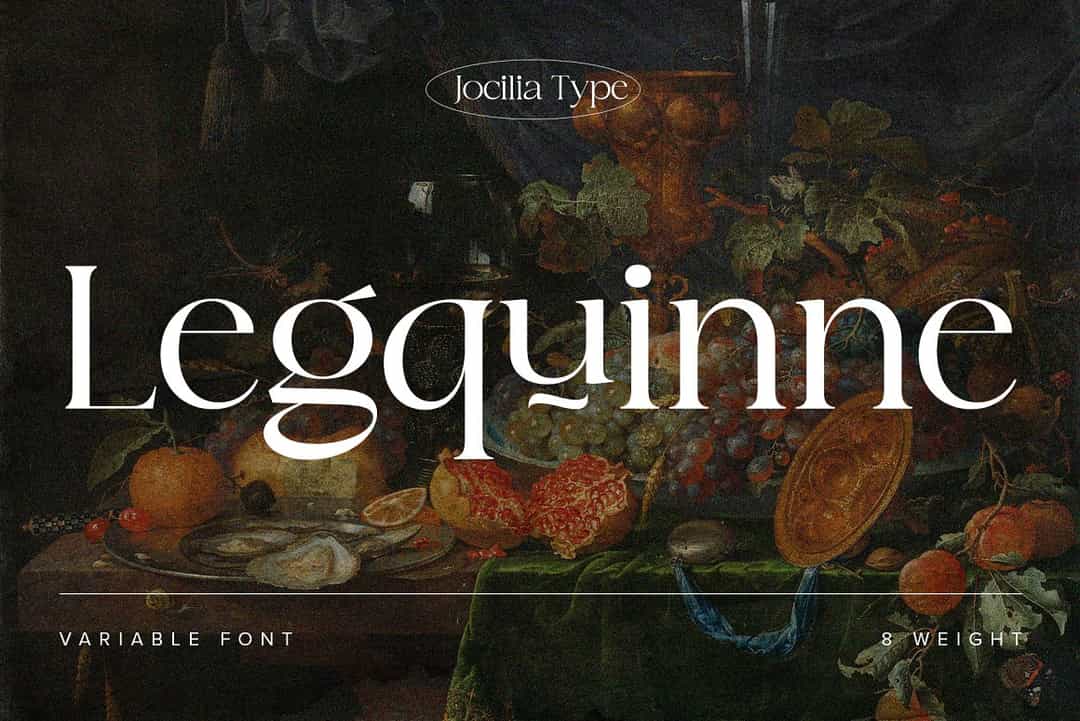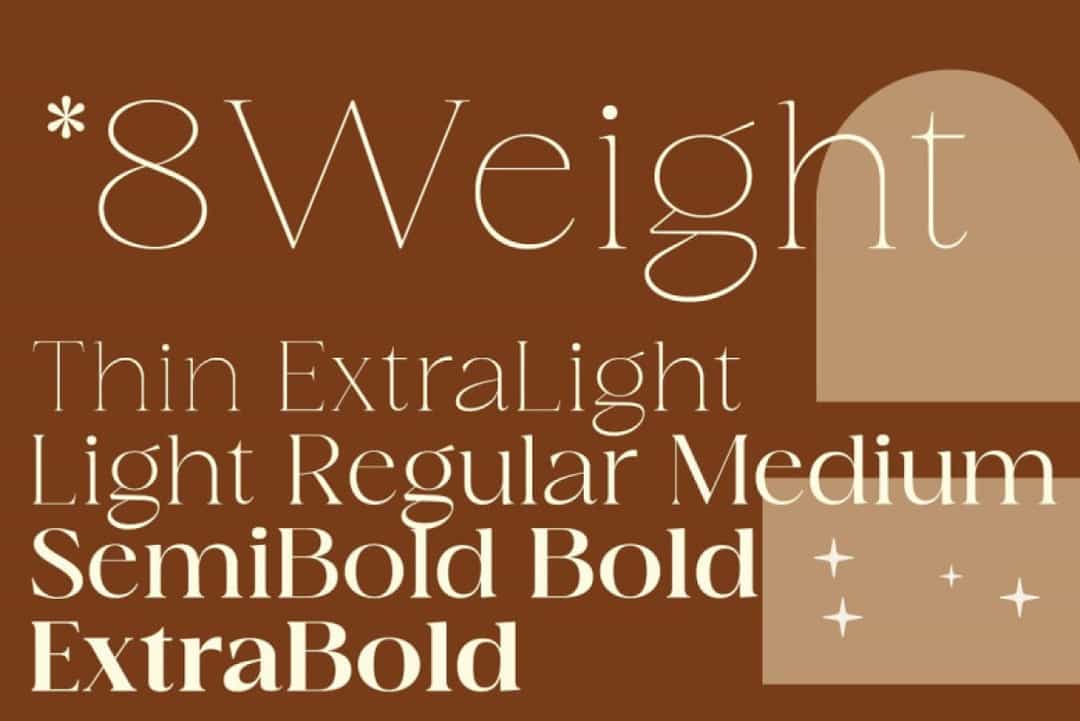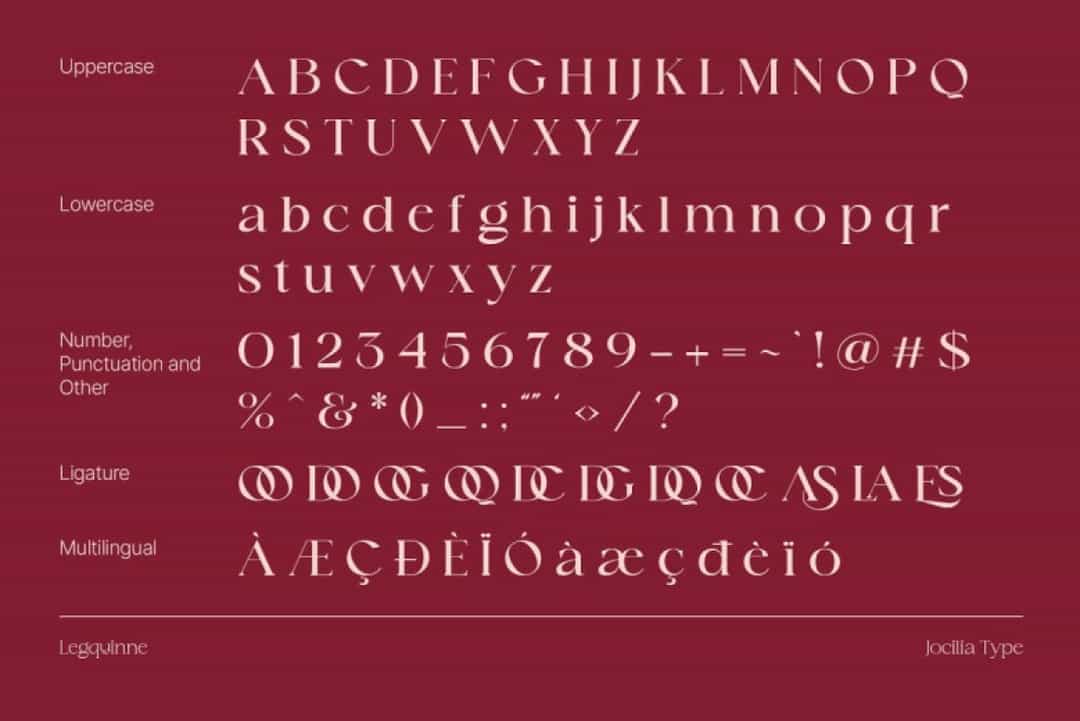
Legquinne is our brand new serif font designed to express modernity and style while creating an aesthetic experience for every word created using it. Boasting eight weights and variations for ultimate flexibility and 429 total glyphs that support up to 93 languages simultaneously – Legquinne will make a bold statement in every word created with it! Available now worldwide!